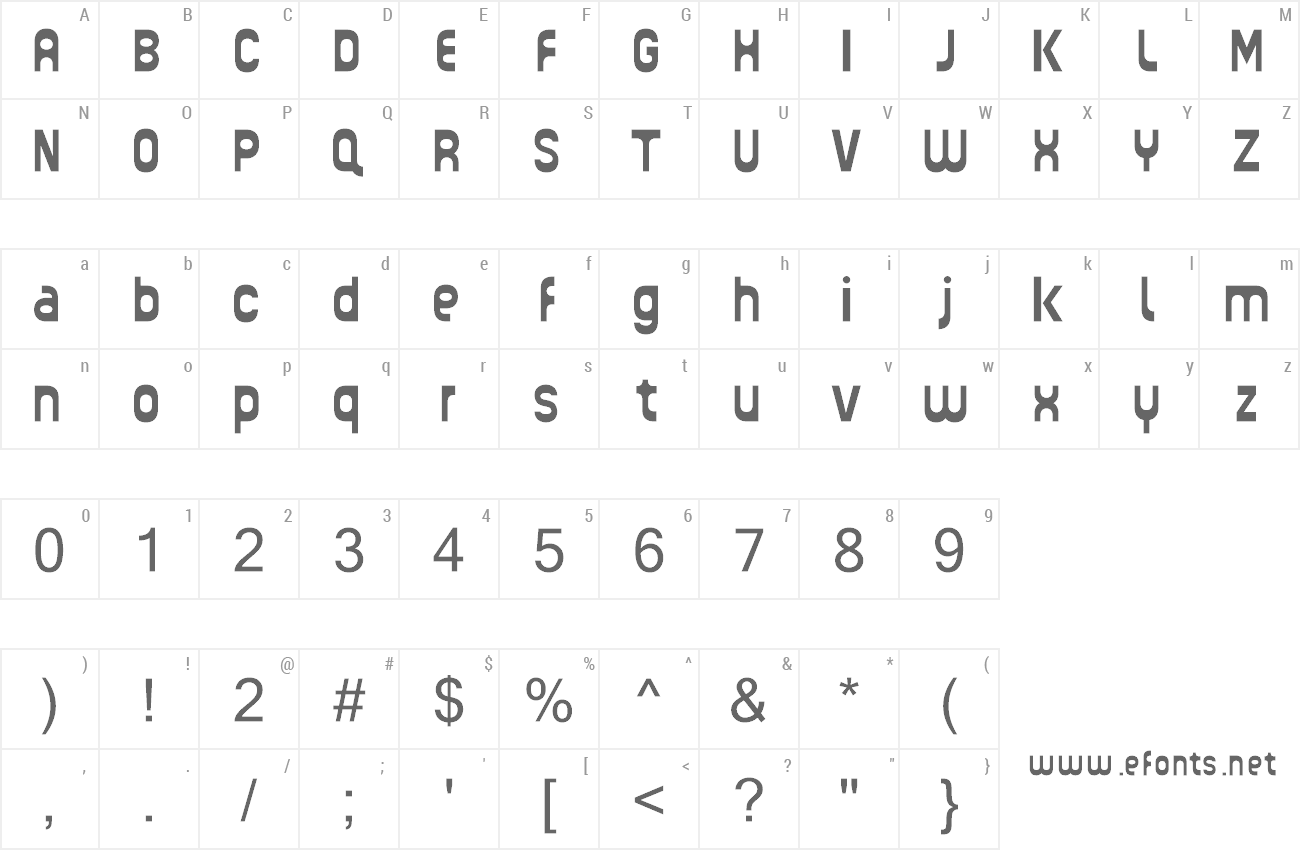
| Font name: | Guhly |
| Author: | ingoFonts |
A modern Sans Serif - prosaic, designed geometrically, beautiful in large sizes. The design of a shampoo bottle stands behind the creation of this sans serif display font. Prominent, clearly constructed forms with circular arcs define its appearance. This is a font primarily designed for use with capital letters – for all sorts of advertising purposes, headlines and titles. But lower case letters also belong to a good functional font; so, of course, GUHLY includes them and ligatures for the more “critical“ letter combinations as well as stylistic alternates for the letters K (or k), V (v) and o. Along with the “normal” GUHLY Regular there are also the two versions “GUHLY Light” and “GUHLY Bold,” whereas in each only the vertical strokes [GUHLY Light] or horizontal [GUHLY Bold] have been changed in strength. The result is a very individual decorative effect which slightly reflects old circus and western scripts. At ingoFonts all fonts can be downloaded. Gratis. Free. Here's the catch: The files offered here to download contain only a reduced font. That means, the font only consists of uppercase and lowercase from A to Z or rather, a to z. The complete font including numerals, umlauts, punctuation and especially ligatures is only available with your order and your cash. |